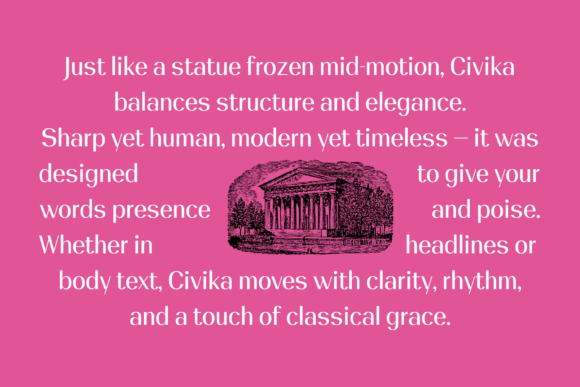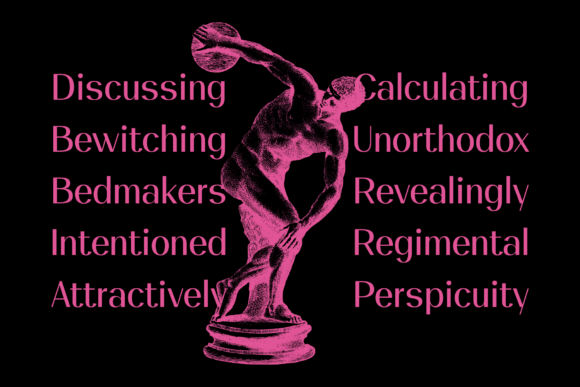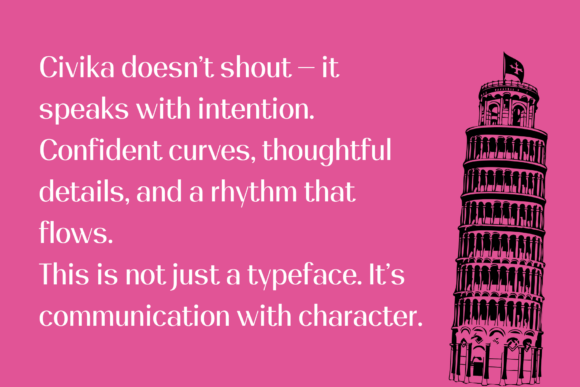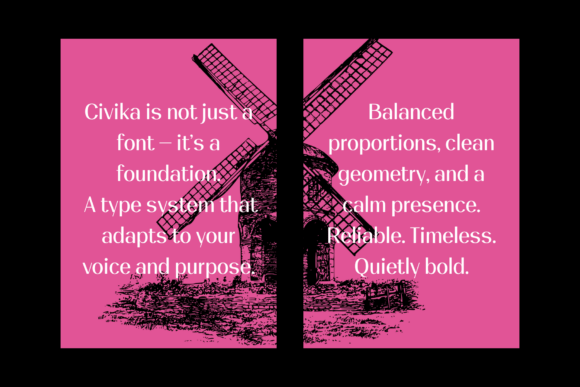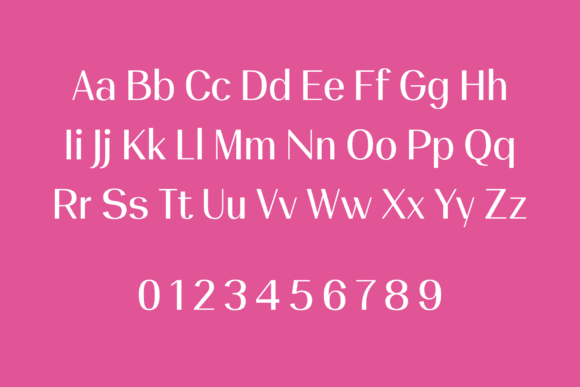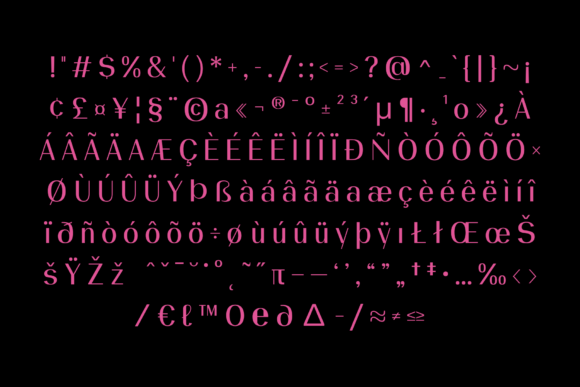
Discovering the Perfect Balance: Introducing Civika Font
Have you ever been in the midst of a creative project, pouring your heart and soul into every detail, only to find yourself stuck on the perfect font? You envision a typeface that exudes calmness, confidence, and a hint of sophistication, but nothing seems to quite fit the bill. This is where the Civika Font comes in – a harmonious blend of modern structure and serene elegance.
Designed to deliver clarity and precision, the Civika Font is an invaluable tool for designers seeking to elevate their work. Its clean sans serif construction ensures that every letter shines at every size, making it an ideal choice for a wide range of projects. Whether you’re crafting a brand identity, designing a website, or creating a publication, the Civika Font is a versatile and reliable companion that will help you achieve your creative vision.
Civika Font Key Features
- Font Family: Civika Font is a sans-serif font family with a modern and clean design, suitable for various digital applications.
- Font Size: Civika Font comes in 6 weights (Thin, Light, Regular, Medium, Bold, Black) and 3 widths (Regular, Condensed, Extended), providing flexibility for different design needs.
- Resolution: Optimized for high-resolution displays, making it suitable for use in digital products such as websites, mobile apps, and digital signage.
- Unique Characteristics: Civika Font features a distinctive geometric shape with rounded edges, giving it a friendly and approachable feel, while maintaining a high level of legibility.
- Language Support: Civika Font supports a wide range of languages, including Latin, Cyrillic, and Greek scripts, making it a versatile choice for global applications.
Civika Font Review
I recently had the chance to work with the Civika Font, and overall, I’m quite pleased with the experience. Here are my thoughts on what works well and what could be improved.
- The Civika Font has a clean and modern aesthetic that makes it perfect for contemporary designs.
- The font is highly legible, even at smaller sizes, making it ideal for body text.
- The font family includes a wide range of weights and styles, allowing for a high degree of customization.
- The font is well-suited for digital use, with clear and crisp rendering on various devices.
- The Civika Font lacks a strong, unique personality, which may make it blend in with other fonts in certain designs.
- The font may not be as effective for more traditional or formal designs, where a more classic or elegant font is preferred.
- The font’s versatility may lead to overuse, making it less effective in certain contexts.
Overall, the Civika Font is a solid choice for designers looking for a clean and modern font. While it may not be the most unique or attention-grabbing option, it’s a reliable choice for a wide range of projects.
Getting the Most Out of Civika Font
To get the most out of the Civika font, use it in conjunction with other elegant fonts to create a sophisticated look. Use it for headings and titles to add a touch of luxury and sophistication.
The Civika font is commonly used for:
– Luxury branding
– High-end marketing materials
– Elegant website designs
– Sophisticated business presentations
Alternatives to Civika Font
Civika Font is a popular sans-serif font known for its modern and clean design. However, there are several alternatives that designers can consider for their projects.
Montserrat is a sans-serif font designed by Julieta Ulanovsky. It’s inspired by the urban typography of the Montserrat neighborhood in Buenos Aires. Montserrat is perfect for projects that require a strong, modern, and urban feel. Compared to Civika Font, Montserrat has a more geometric and industrial look, making it ideal for tech and startup branding.
Open Sans is a clean and modern sans-serif font designed by Steve Matteson. It’s highly legible and works well for digital and print materials. Open Sans is a great alternative to Civika Font for projects that require a neutral and professional tone. It’s also a great choice for body text and headings.